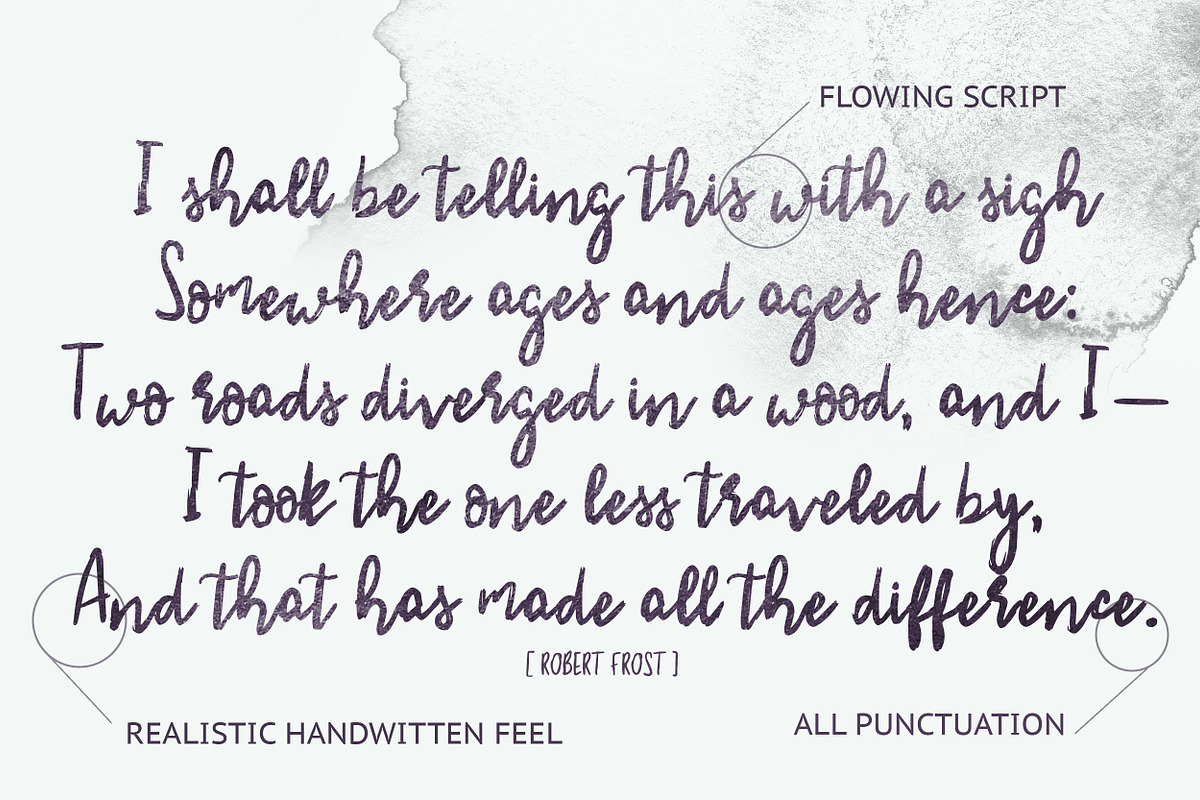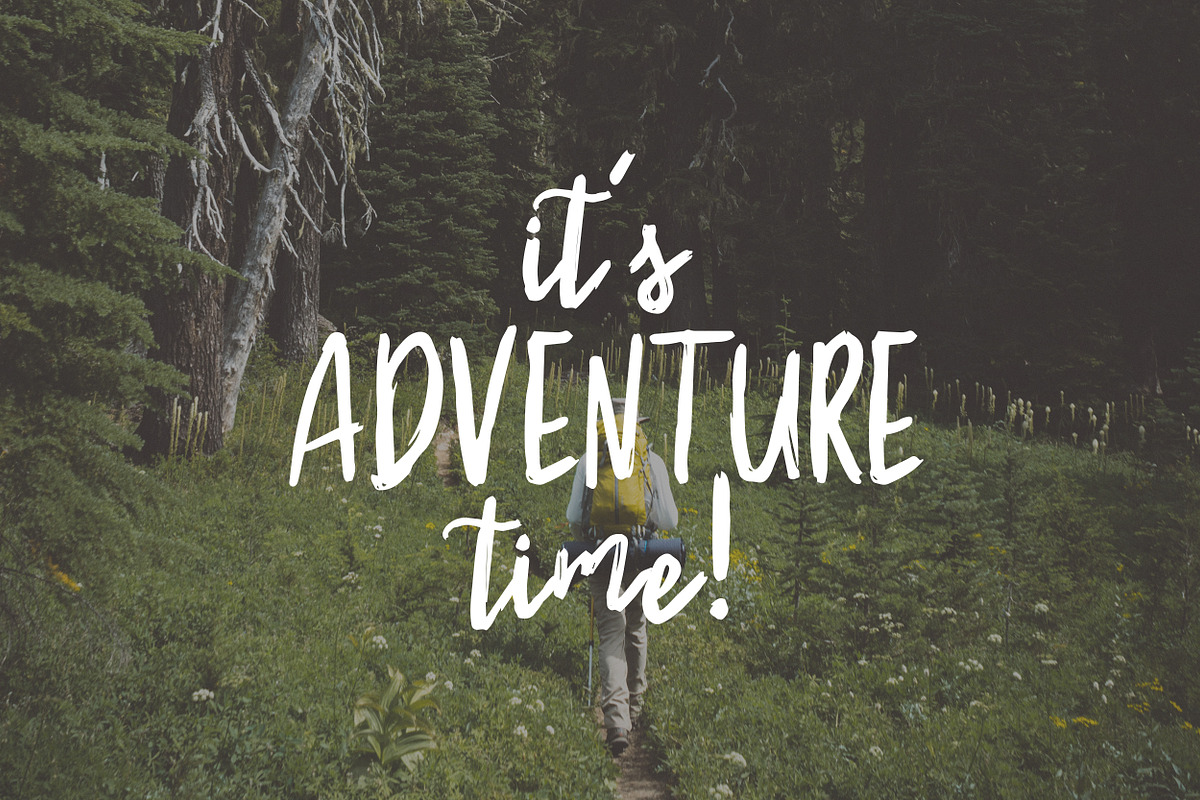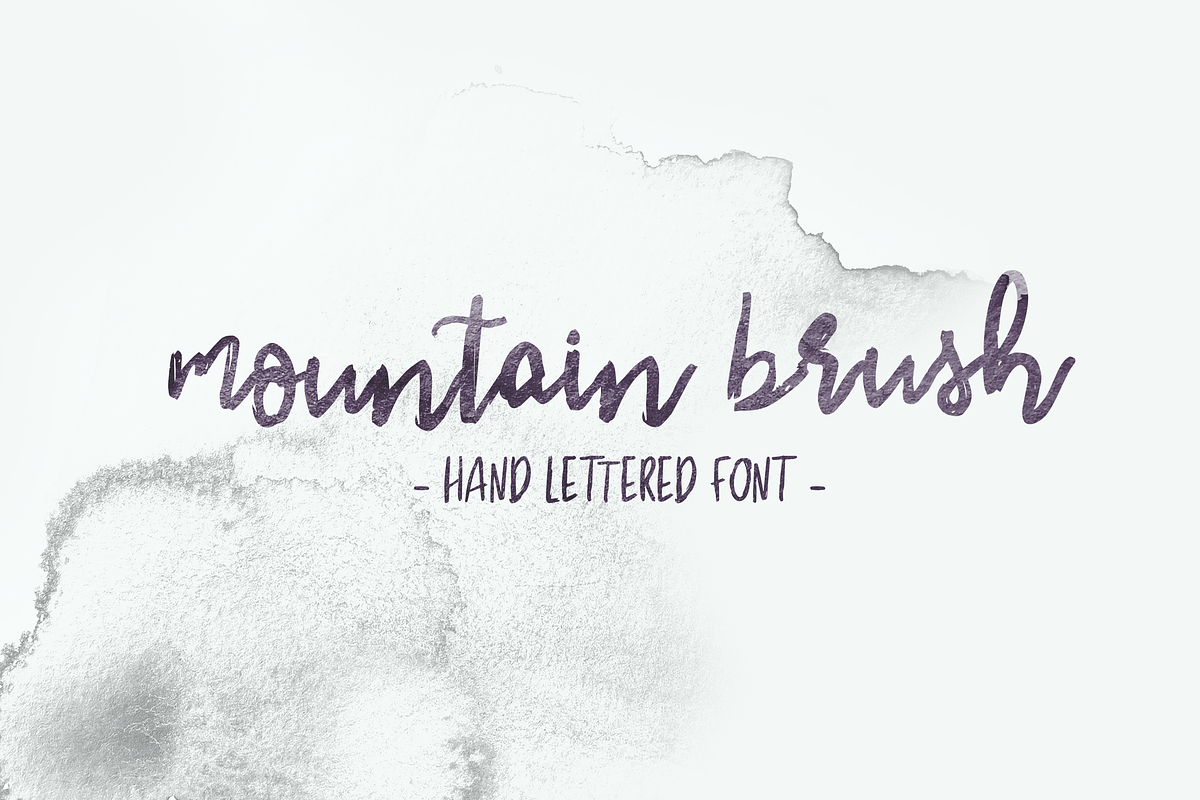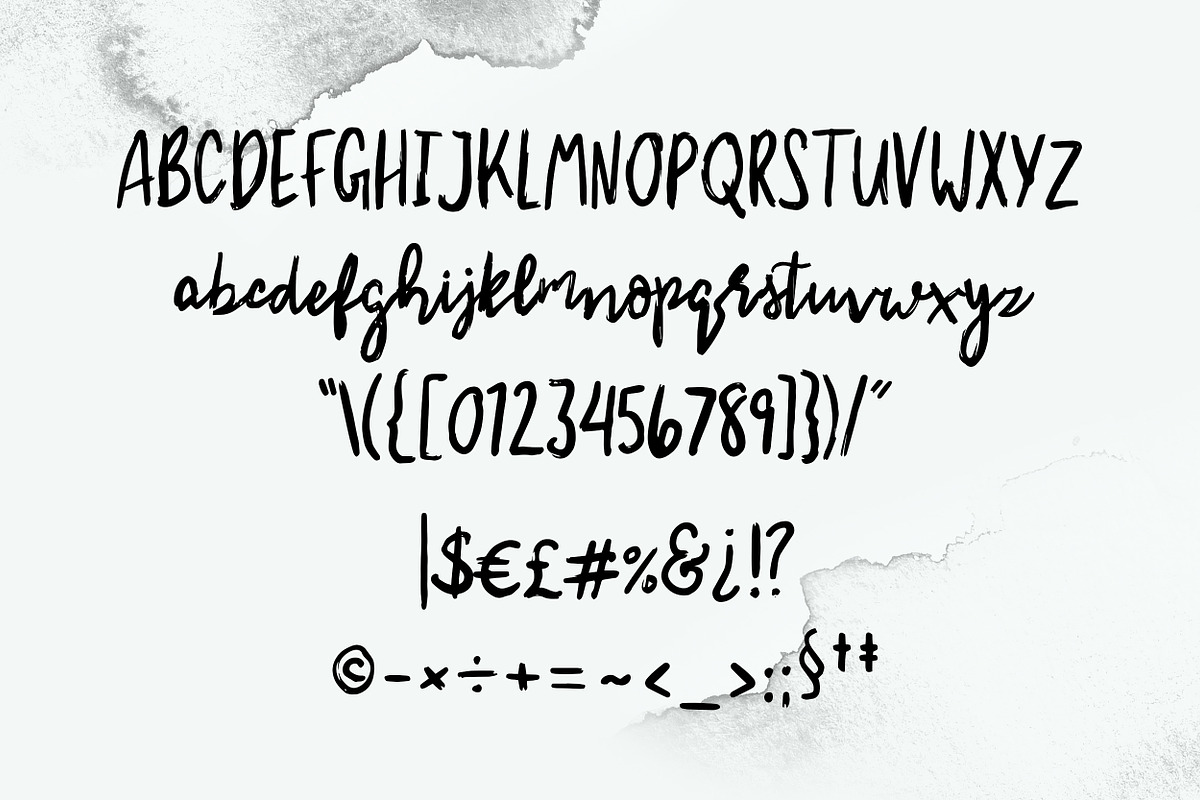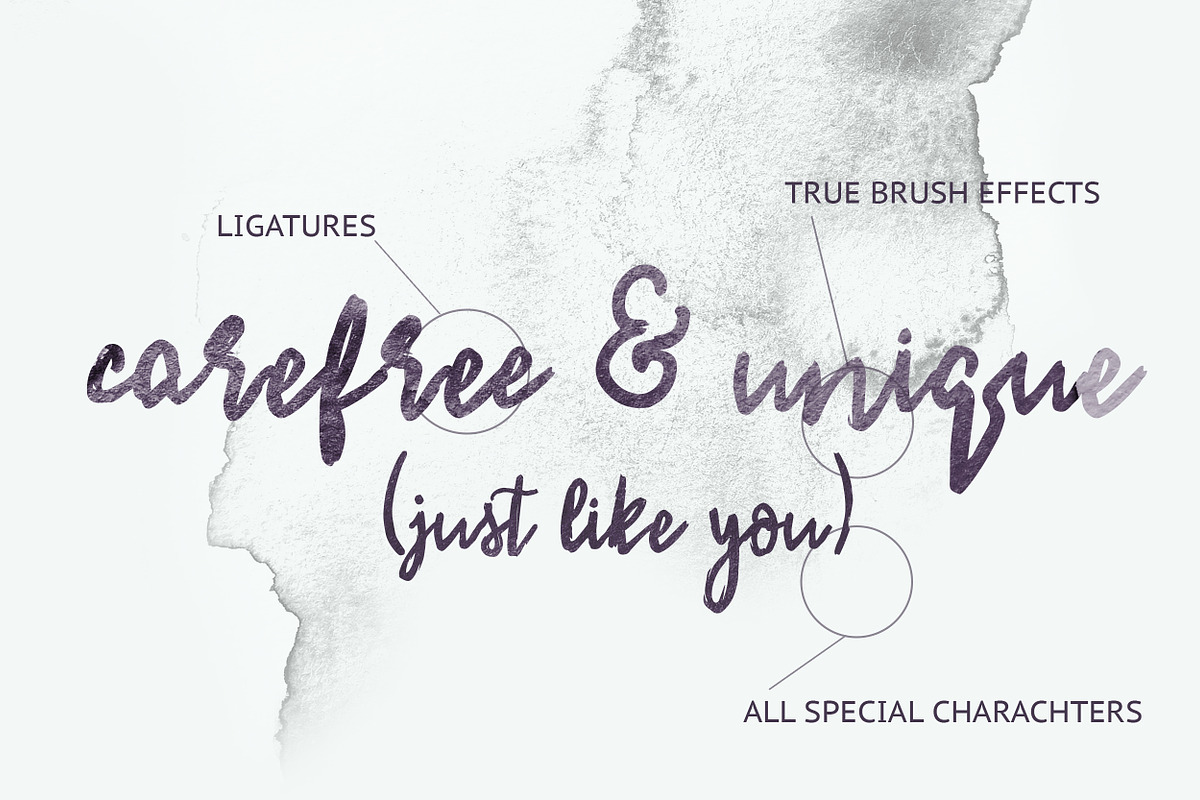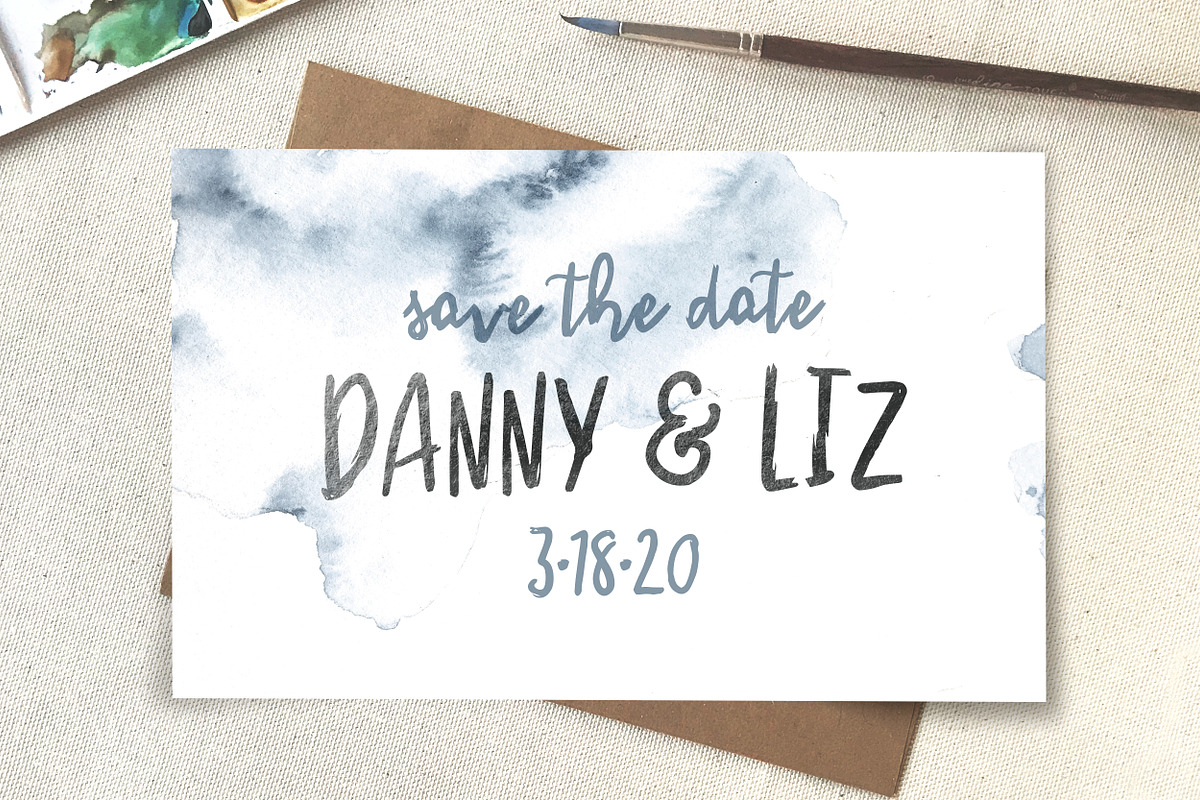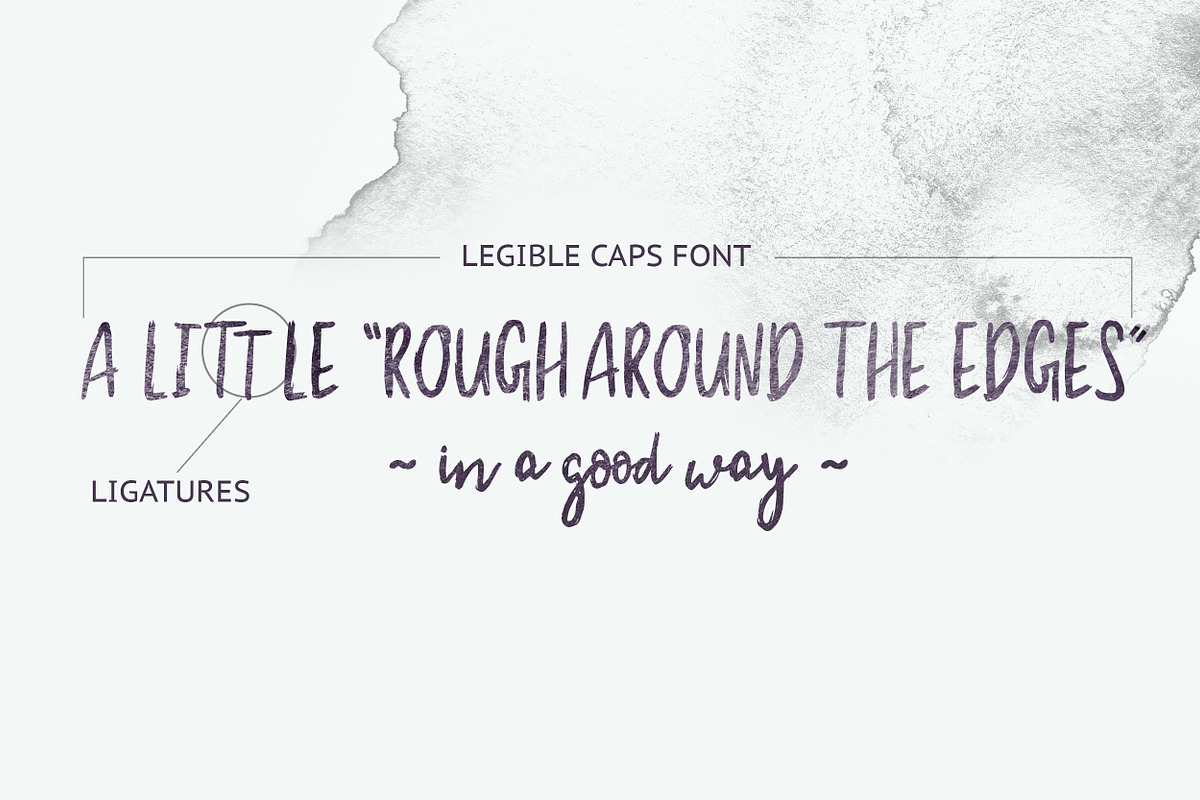
Mountain Brush Font
Super versatile handwritten brush font! Features realistic rough edges for a textured brush effect and perfect connections between each letter for a scrawling script appearance. Handwritten cursive font with a bit of an adventure flare that's neither particularly feminine or masculine. Thick strokes result in legible text with tons of personality.
Multiple ligatures ~ for a realistic handwritten appearance